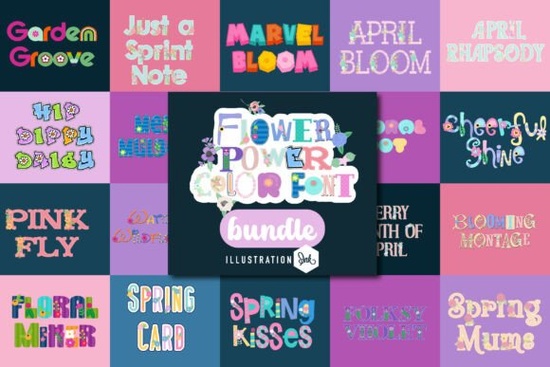
If you’ve been searching for a way to add cheerful, hand-drawn floral charm to your designs without spending hours illustrating every petal, the Flower Power Color Font bundle might be exactly what you need. This collection includes 20 full-color fonts each one layered with delicate blossoms, leaves, and vintage-inspired details that feel both playful and polished. Unlike standard fonts, these are designed with embedded color and texture, so you get rich visual depth right out of the box.
Whether you’re designing spring wedding invitations, creating botanical branding for a small shop, or personalizing nursery wall art, this bundle gives you expressive typography that already feels finished. You don’t need to add clipart or overlays the flowers are built into the letterforms themselves.
What makes these fonts different from regular decorative fonts?
Most decorative fonts rely on outlines or solid fills, but the fonts in this bundle are true color fonts meaning they support multiple colors, gradients, and even transparency within a single character. That’s why they look so lively and dimensional. They’re especially useful if you work in software that supports OpenType-SVG (like Adobe Illustrator, Photoshop CC 2017+, or Affinity Designer), where the full color detail renders beautifully.
Each font in the set has its own personality from dainty script styles wrapped in ivy to bold retro letters bursting with daisies. And because they’re hand-crafted, no two glyphs feel robotic or repetitive. If you're curious about how they look in action, you can preview the full range over on the Flower Power Color Font product page.
Who actually uses fonts like this and how?
- Print-on-demand sellers use them for mugs, tote bags, and greeting cards that stand out with seasonal flair.
- Small business owners incorporate them into logos, packaging, or social media graphics for florists, bakeries, or wellness brands.
- Crafters and hobbyists love them for scrapbooking, handmade cards, or vinyl cutting projects (just note: some cutting machines may require flattening or tracing the design first).
- Graphic designers layer them into posters, digital invites, or editorial layouts when they want instant warmth and organic texture.
How do I know which font to pick for my project?
The bundle includes everything from subtle accents to full-bloom extravagance. Here’s a quick guide:
- If you want something elegant and understated, try FloralWhisper it features light vine motifs along clean script lines.
- For bold, joyful statements (think birthday banners or summer sale signs), BlossomBold packs petals right into chunky sans-serif letters.
- Nursery or kids’ designs? PetalPlay offers rounded, friendly shapes with tiny daisies tucked into curves.
Are there any limitations I should know about?
Before you start your next project, ask yourself: does this design need a touch of garden-fresh joy? If so, the Flower Power Color Font bundle could save you time while adding handmade charm. Just make sure your software supports color fonts, pick a style that matches your mood, and let the blooms do the talking.